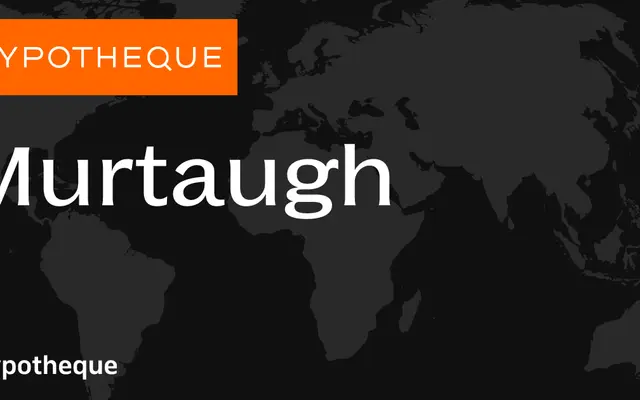
Murtaugh
A humanist sans-serif system from Typotheque offering six weights with matching italics across standard and condensed widths.
A two-subfamily system comprising Murtaugh and Murtaugh Condensed, each running from Light to Black with corresponding italics. The family is structured for extended text use across varied settings, with the condensed cut adding flexibility for tighter column widths or display purposes. Individual styles are sold separately under city-name identifiers, suggesting a modular licensing approach typical of Typotheque's retail model.
Murtaugh presents as a contemporary humanist sans-serif with a broad weight range and condensed subfamily, consistent with Typotheque's text-oriented design sensibility.